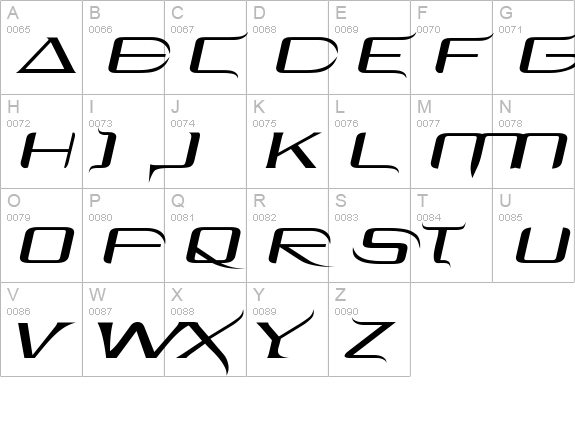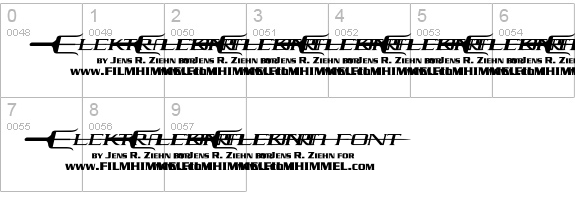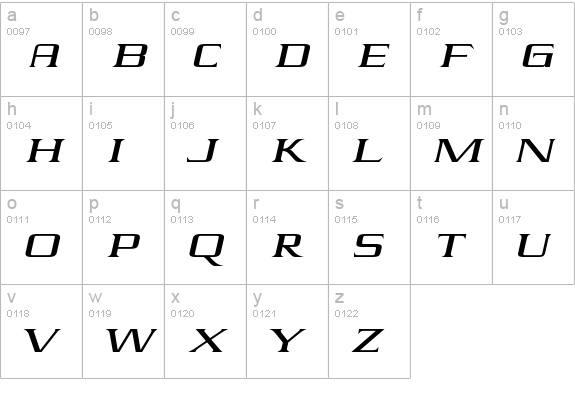
Elektra Font Details
Elektra font is a stunning and versatile typeface that effortlessly combines elegance with a touch of modernity. Its sleek and sophisticated design captures attention and adds a touch of professionalism to any project. With its clean lines and graceful curves, Elektra font is perfect for both headings and body text. It exudes a sense of confidence and refinement, making it ideal for a wide range of applications such as branding, advertising, editorial design, and more. One of the standout features of Elektra font is its versatility. It seamlessly adapts to different styles and themes, effortlessly enhancing the visual appeal of any design. Whether you're creating a minimalist logo or an elaborate poster, Elektra font will deliver exceptional results. And the best part? Elektra font is available for free! You can easily download it at FontsMarket.com, a trusted source for high-quality fonts. By offering Elektra font for free, the creators have made it accessible to designers and creatives of all levels, ensuring that everyone can benefit from its beauty and functionality. So why wait? Elevate your designs with Elektra font today. Download it for free at FontsMarket.com and unlock a world of endless design possibilities.